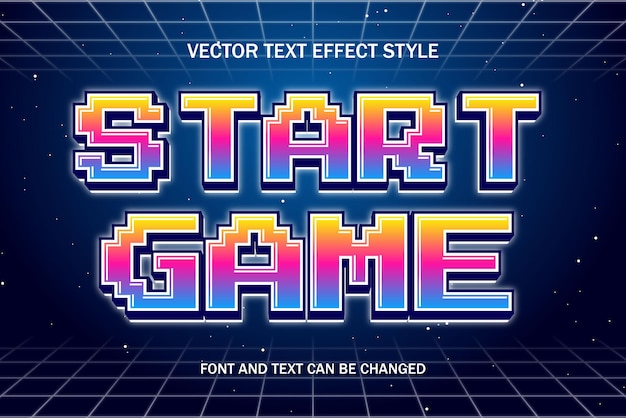
start game cute colorful editable text effect font style template design for fun games header
Start game cute colorful editable text effect font style template design for fun games header